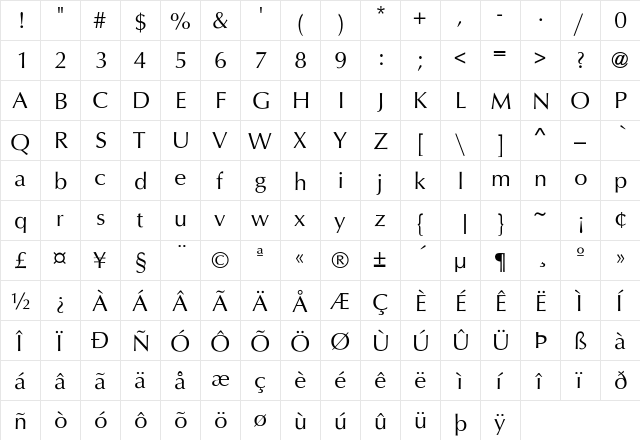
Optimum-Roman Regular
Design Context for Optimum-Roman Typeface
Optimum-Roman takes a measured approach to typography — its balanced proportions and neutral character make it a reliable workhorse for both digital and print work.